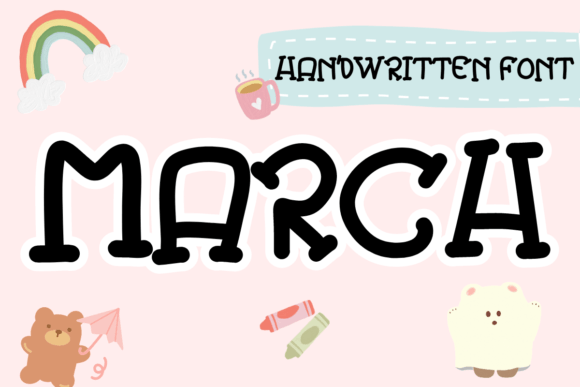
Behold the Enchanting March Font: Experience the Elegance of Handwritten Beauty
Unleash the charm and elegance of the March Font, a captivating handwritten font that transports you to a world of artistic beauty. With its graceful curves and flowing strokes, March Font breathes life into your designs, adding a touch of personal flair that speaks volumes.
Crafted by the renowned Sirinart, a master of typographic artistry, March Font embodies the essence of effortless style. Its meticulously crafted characters dance across the page, evoking a sense of timeless sophistication. Experience the joy of writing love letters, crafting heartfelt notes, or designing breathtaking invitations – March Font is your perfect companion, transforming ordinary words into works of art.
Immerse yourself in the versatility of March Font, a font that seamlessly adapts to a myriad of creative endeavors. Whether you're a budding calligrapher, a passionate crafter, or a design enthusiast, March Font empowers you to express your individuality in countless ways. Personalize mugs, add a touch of elegance to your social media posts, or create stunning banners that captivate your audience – the possibilities are endless.
With March Font, you'll discover a font that transcends the boundaries of ordinary typography. Its enchanting charm adds a touch of magic to photo books, transforming cherished memories into captivating stories. Let March Font guide your imagination, as you weave narratives that come alive on the page, capturing the essence of life's most precious moments.
Embrace the magic of March Font, a handwritten masterpiece that elevates your designs and ignites your creativity. Dive into a world where beauty and functionality intertwine, where every word you write carries a touch of elegance and grace. Experience the allure of March Font today and embark on a creative journey that will leave you spellbound.